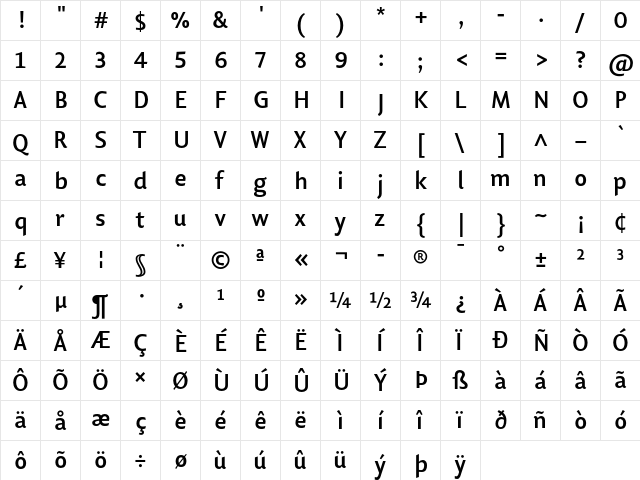
Lisboa LF Bold
Design Context for Lisboa LF Typeface
Lisboa LF takes a measured approach to typography — its balanced proportions and neutral character make it a reliable workhorse for both digital and print work. The heavy weight commands attention and anchors typographic hierarchies.